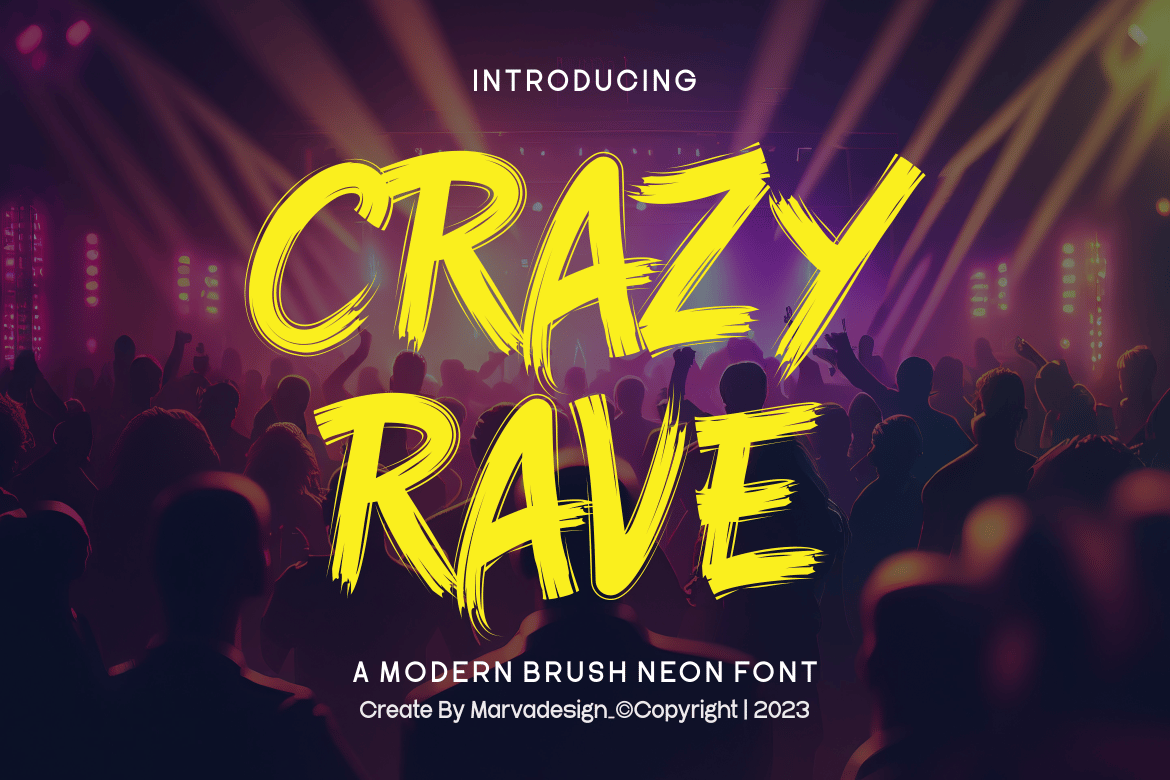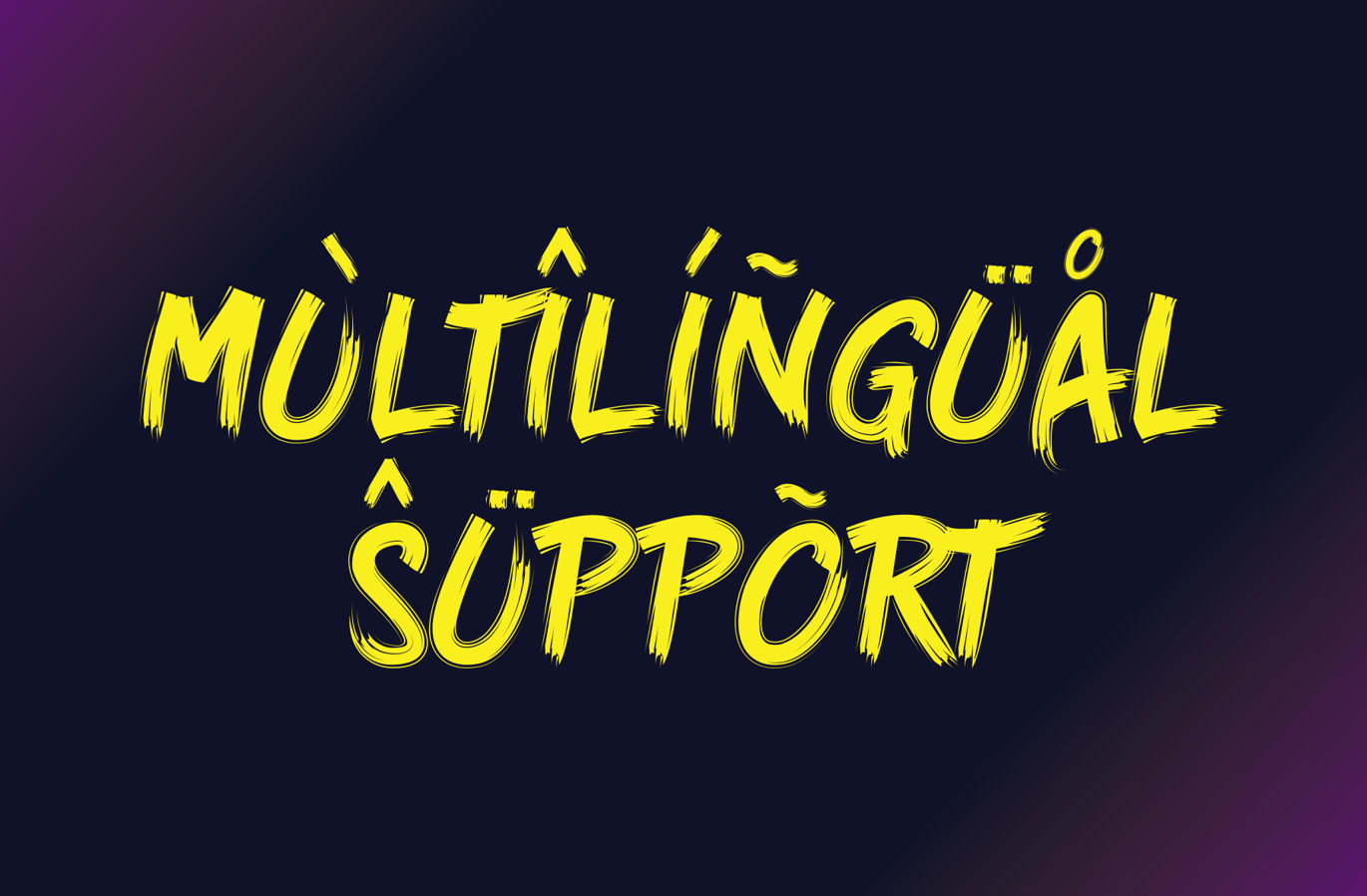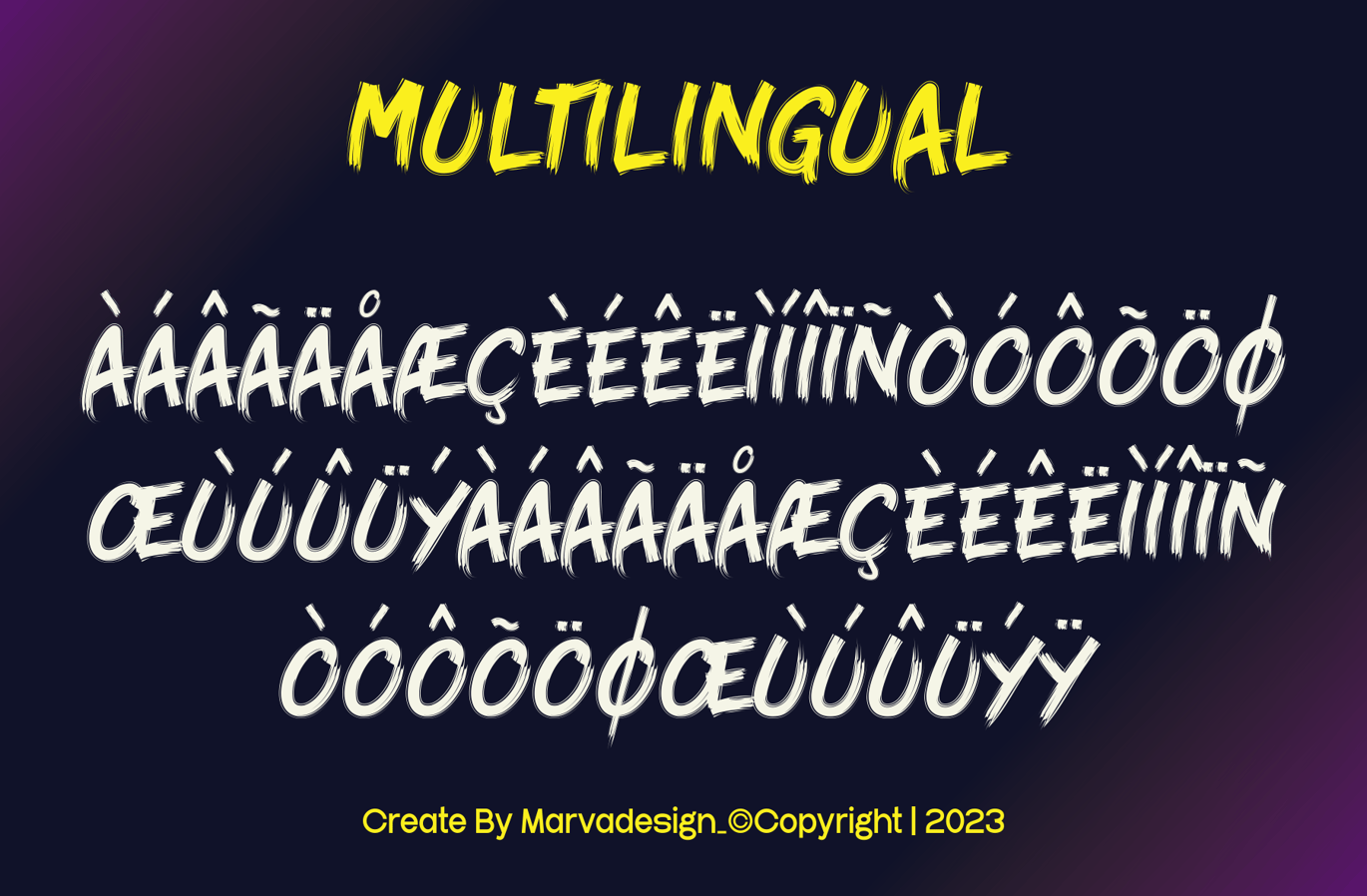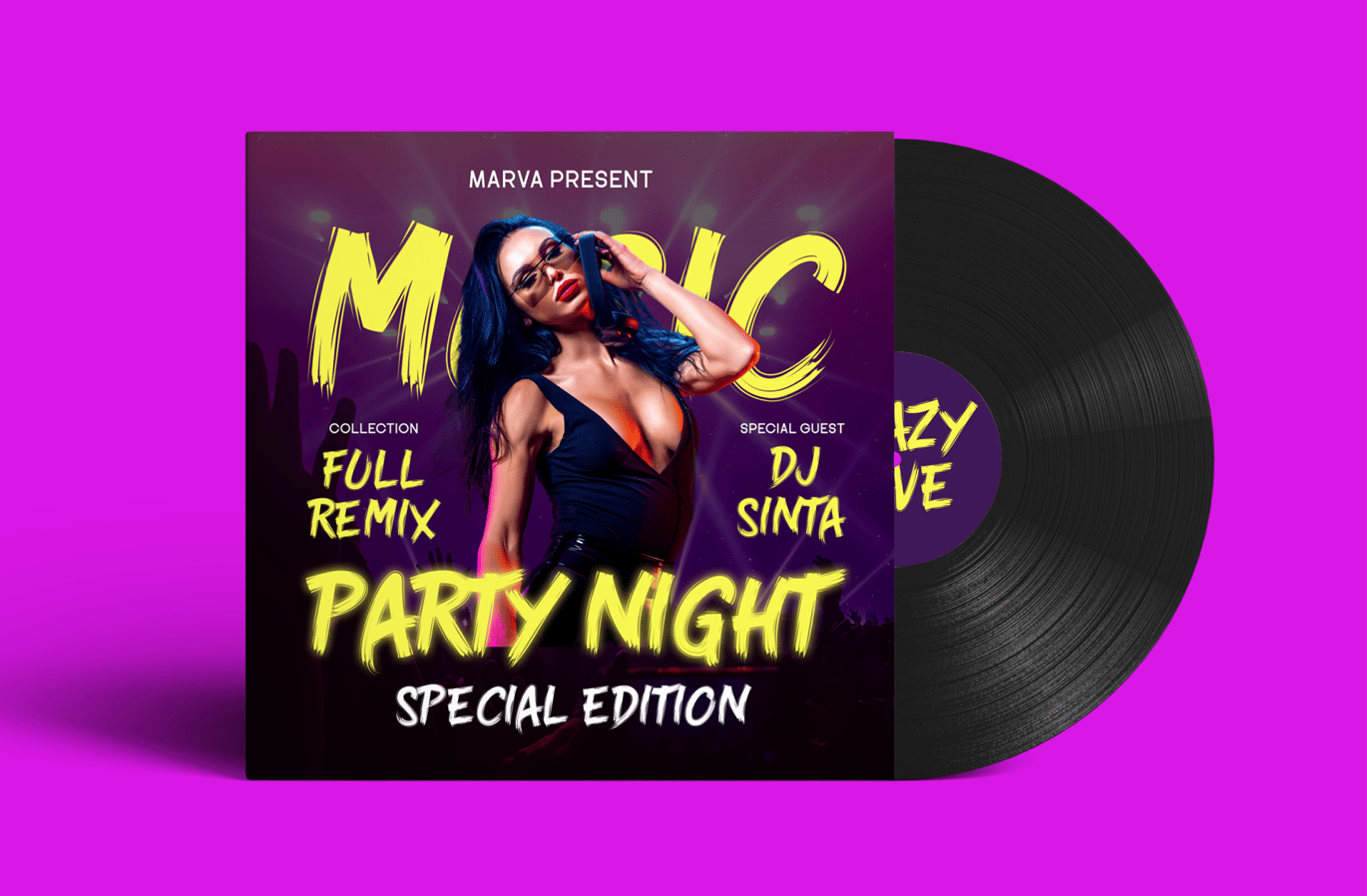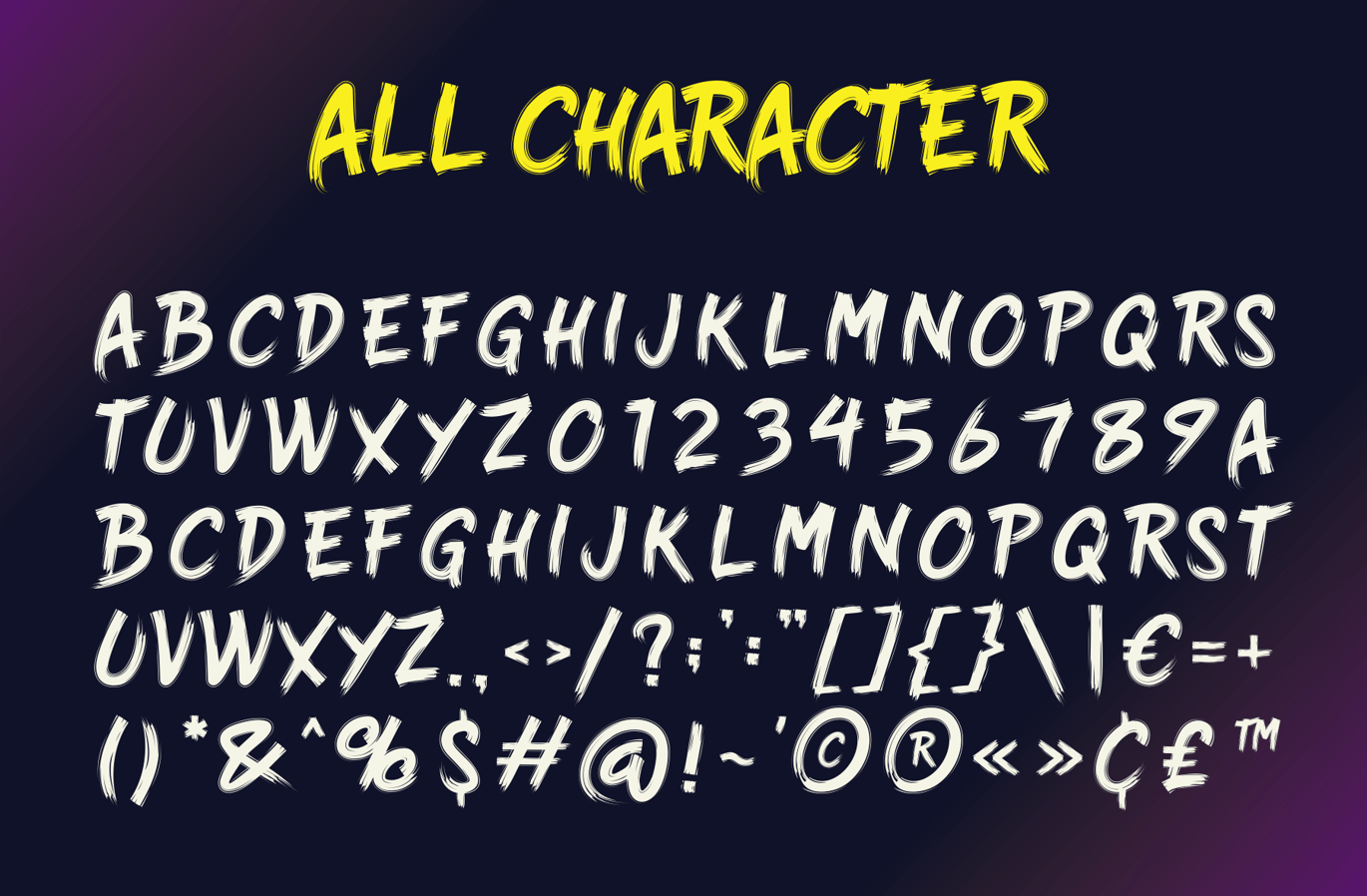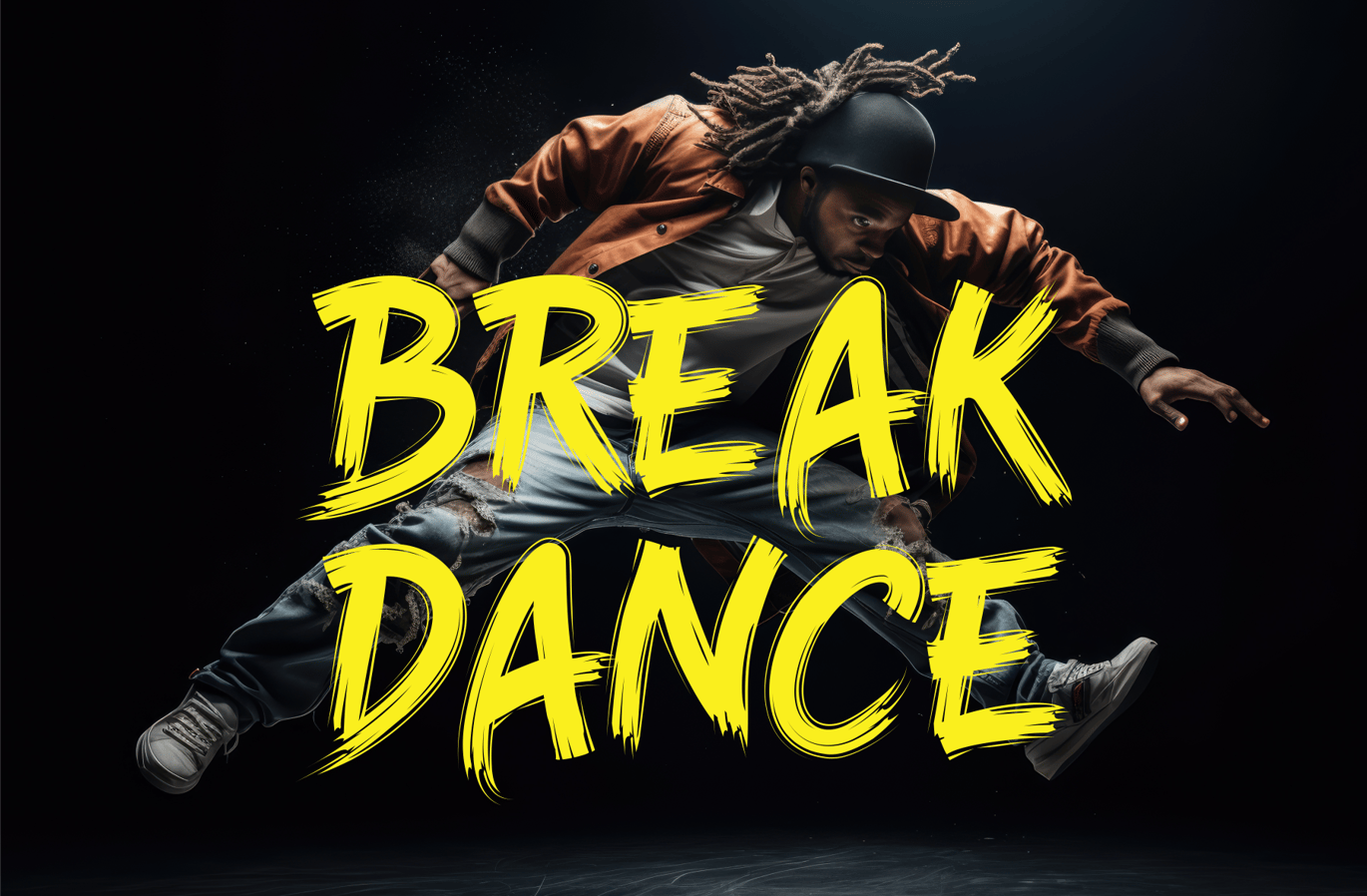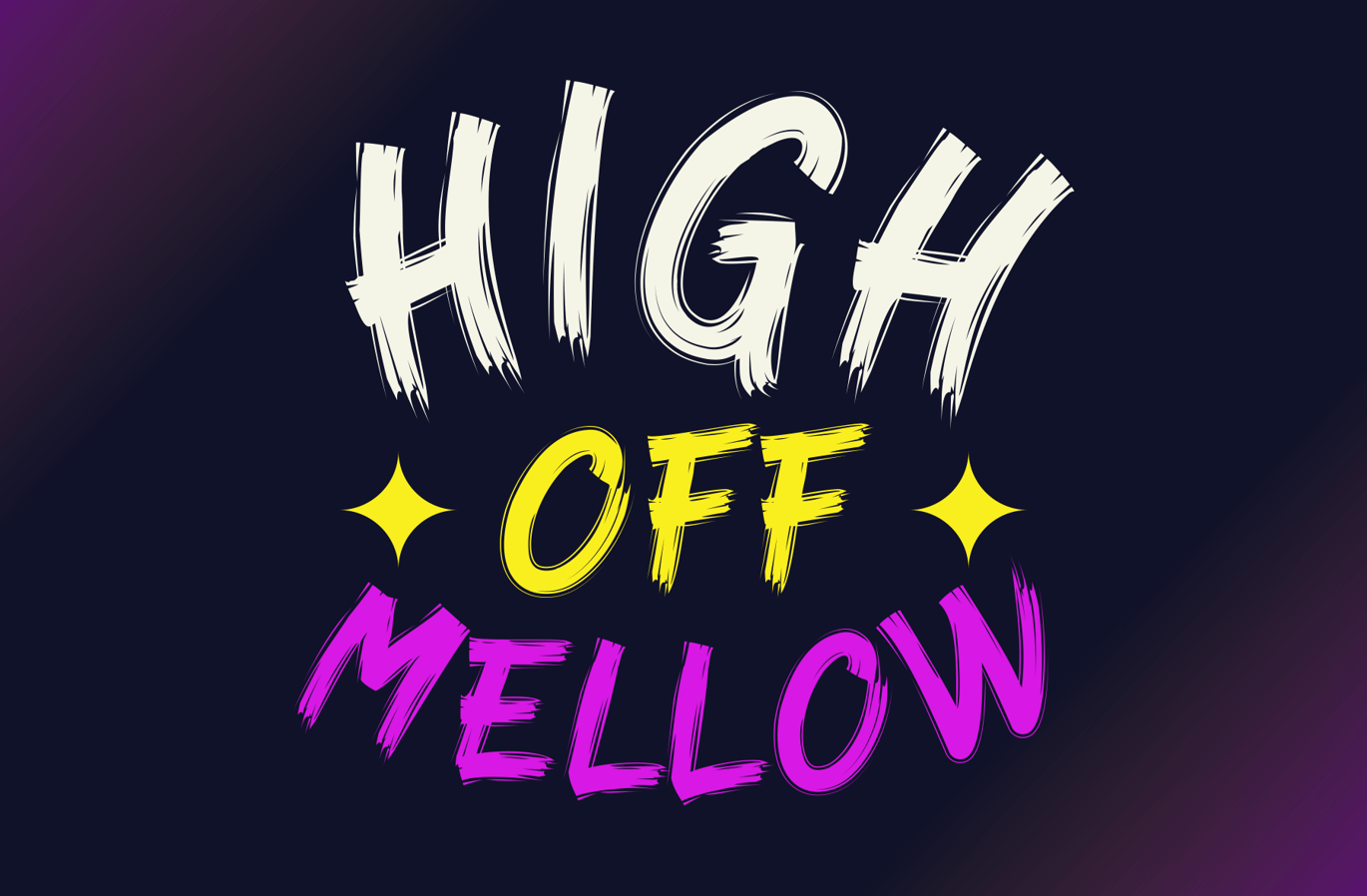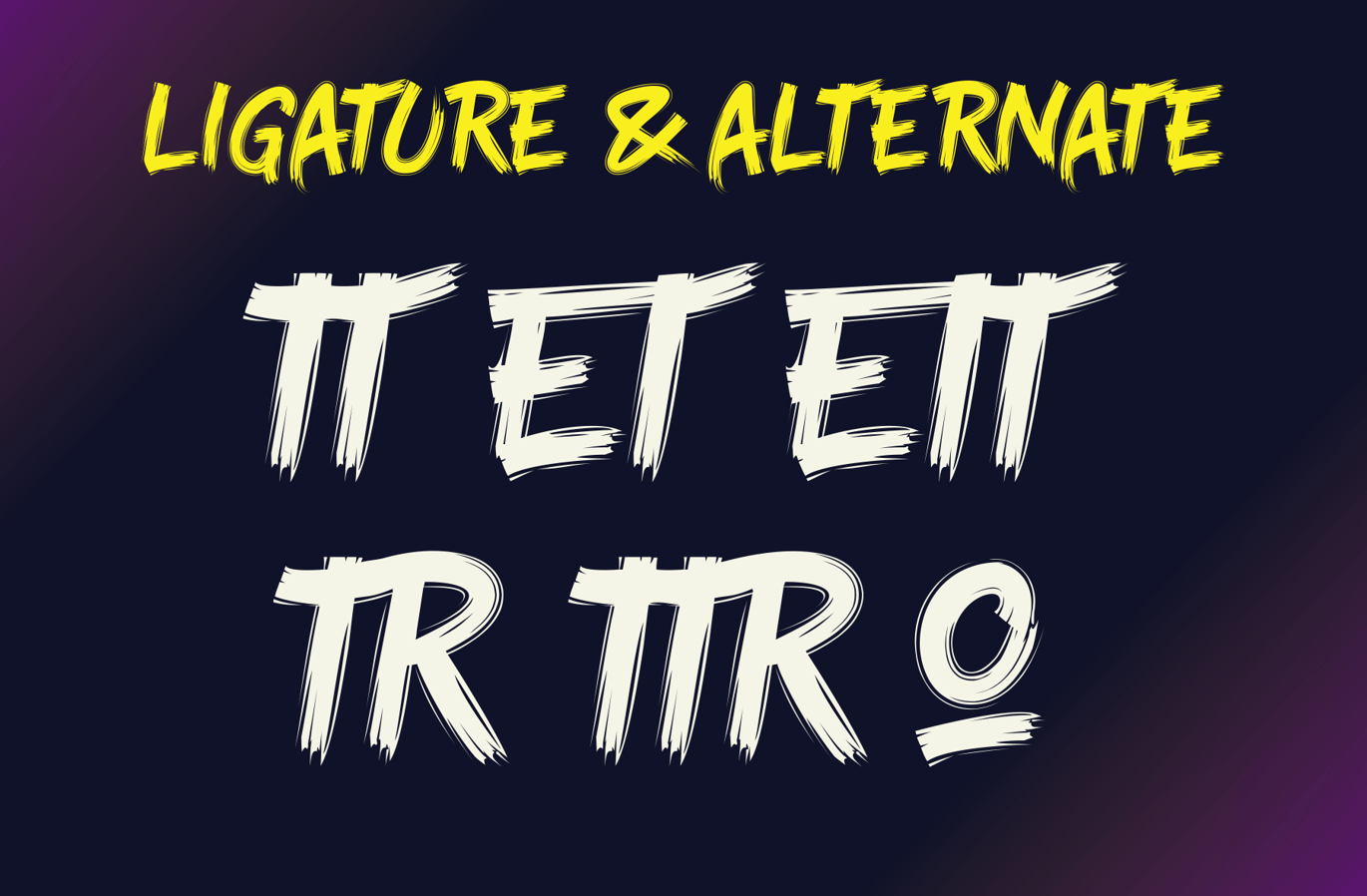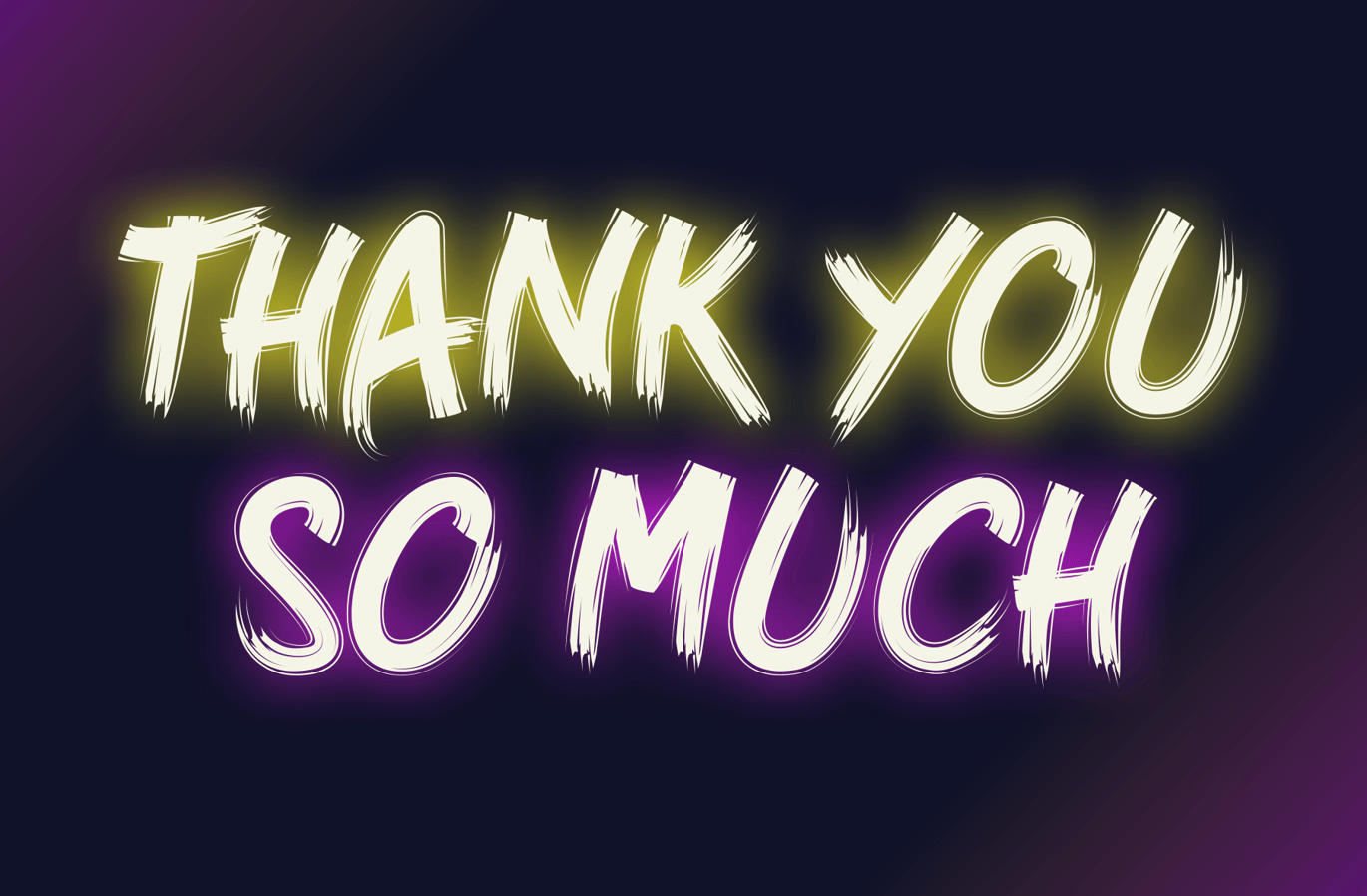
Crazy Rave – A Modern Brush Neon Font
Introducing our new product Crazy Rave Font – A Modern Brush Neon Font
Crazy Rave Font – A Modern Brush Neon Font authentic display font. The font is suitable for any branding project like logo, Template Design, Product and many more. outstanding in a wide range of contexts.